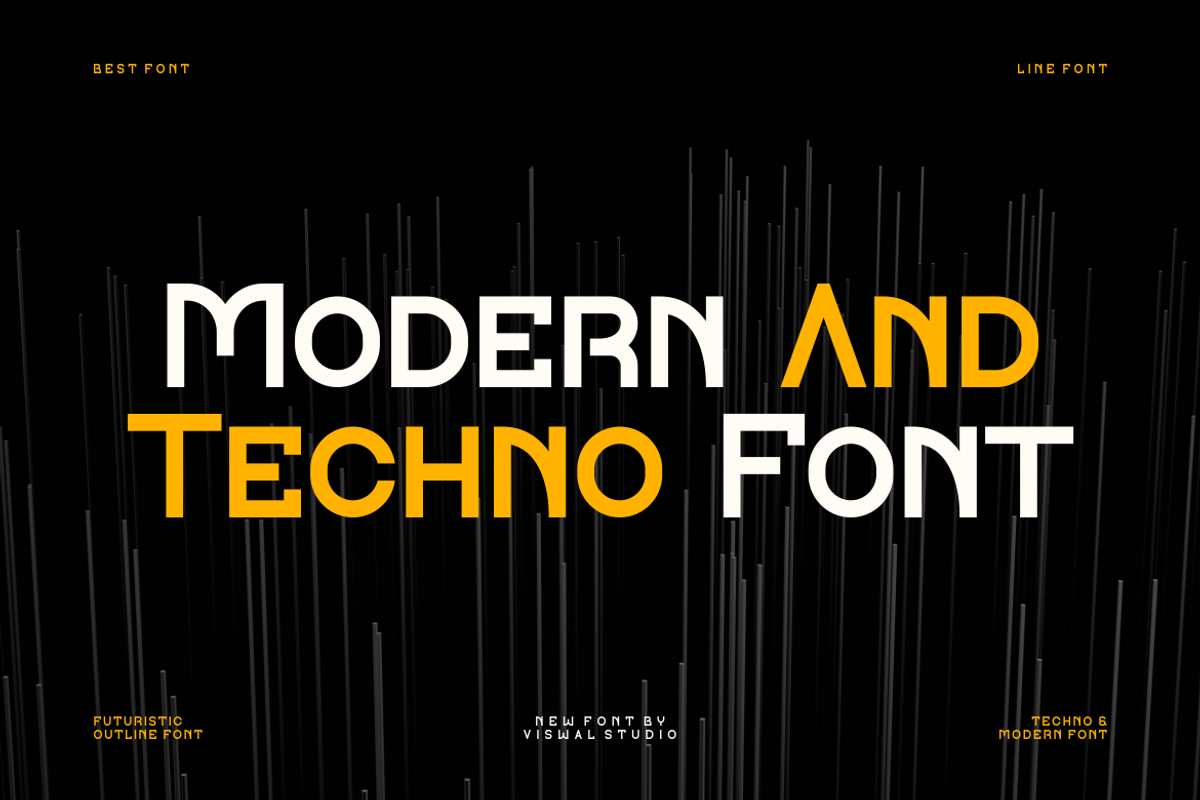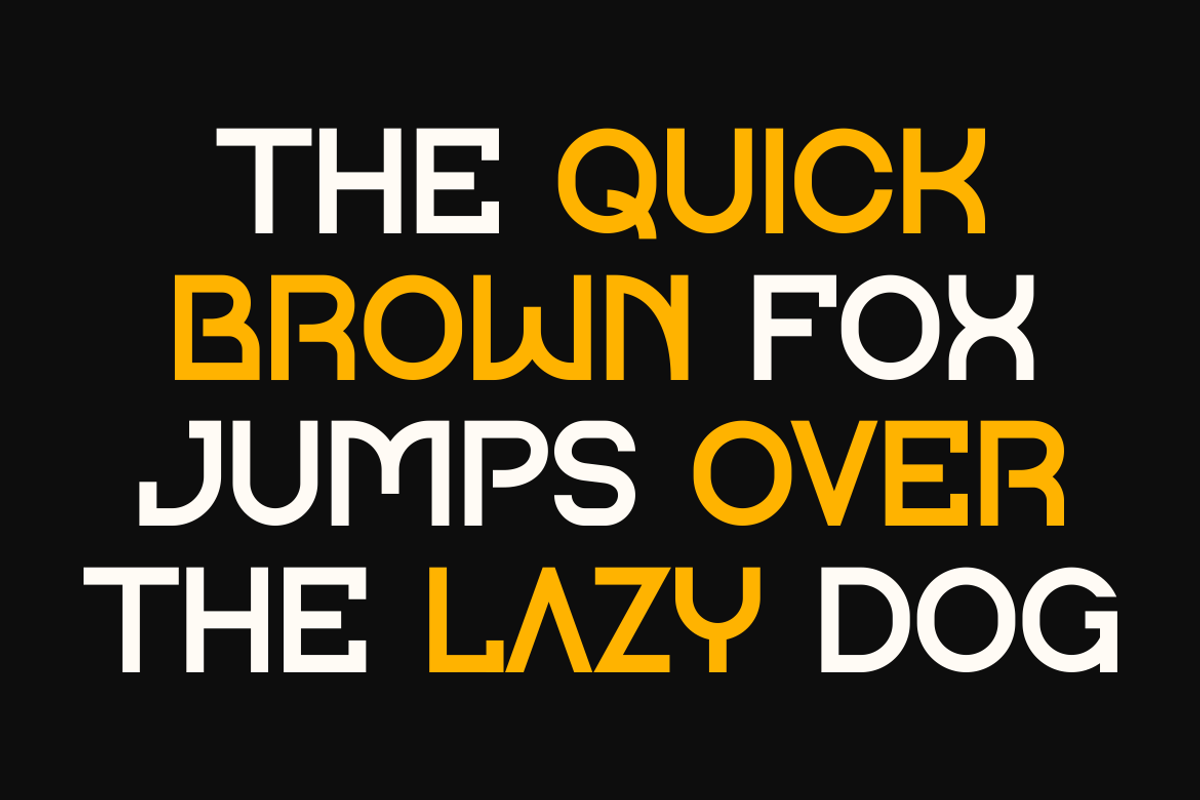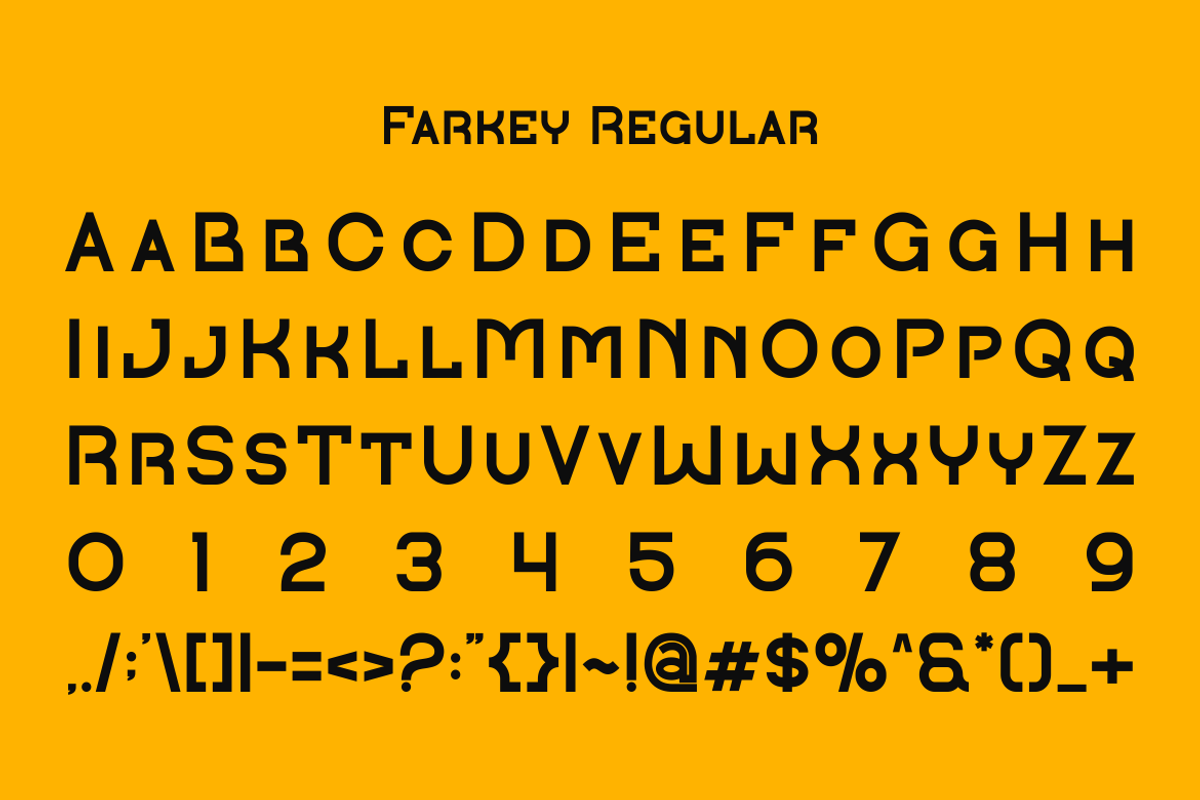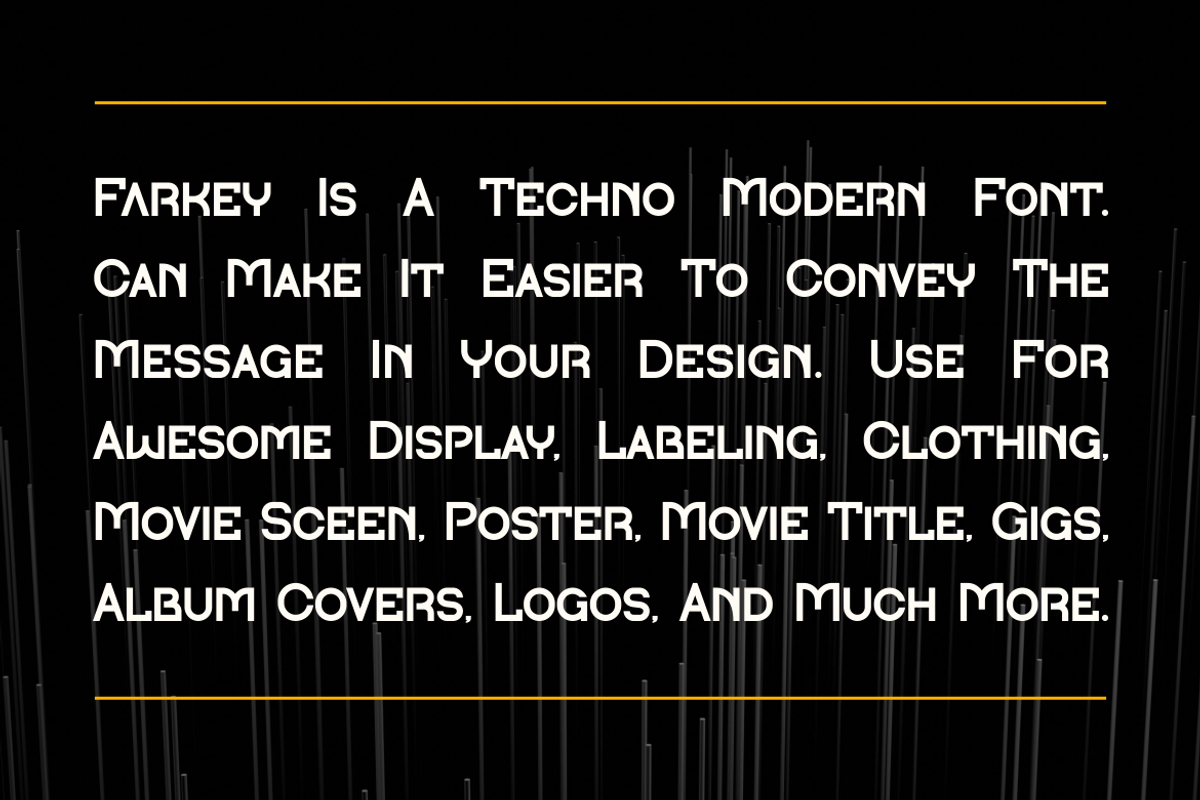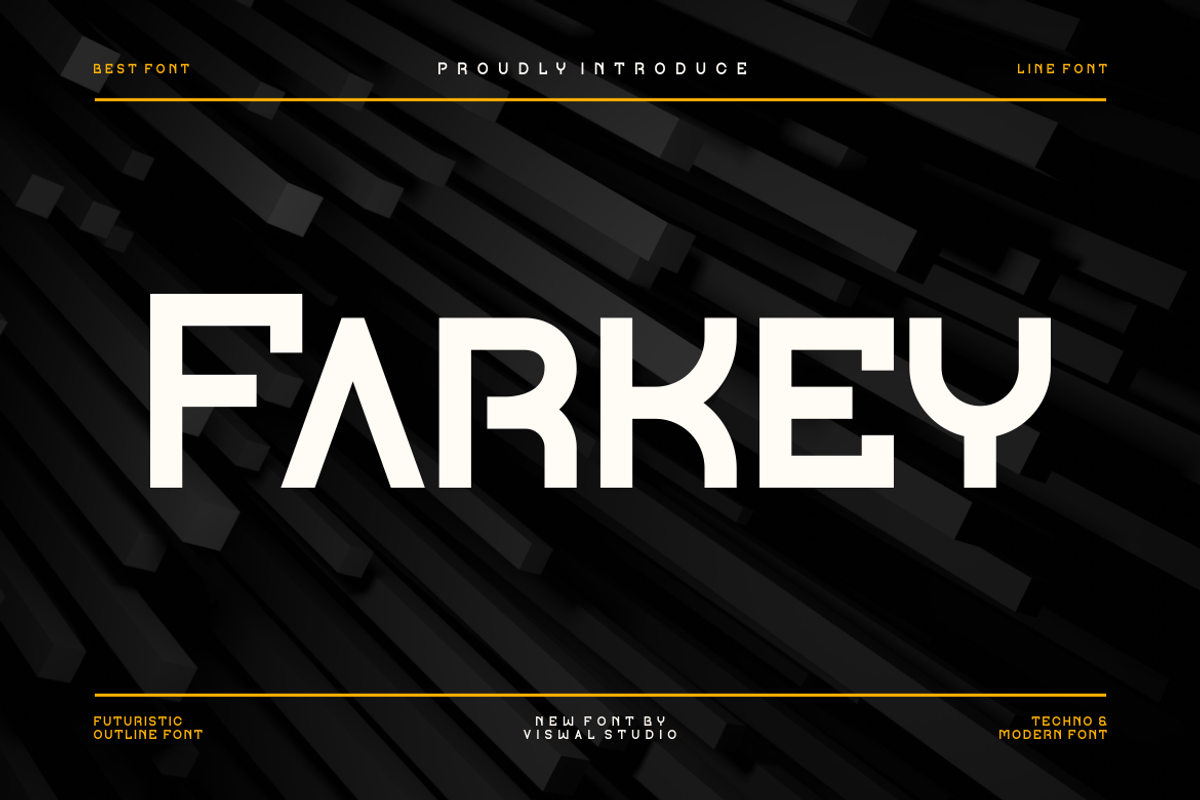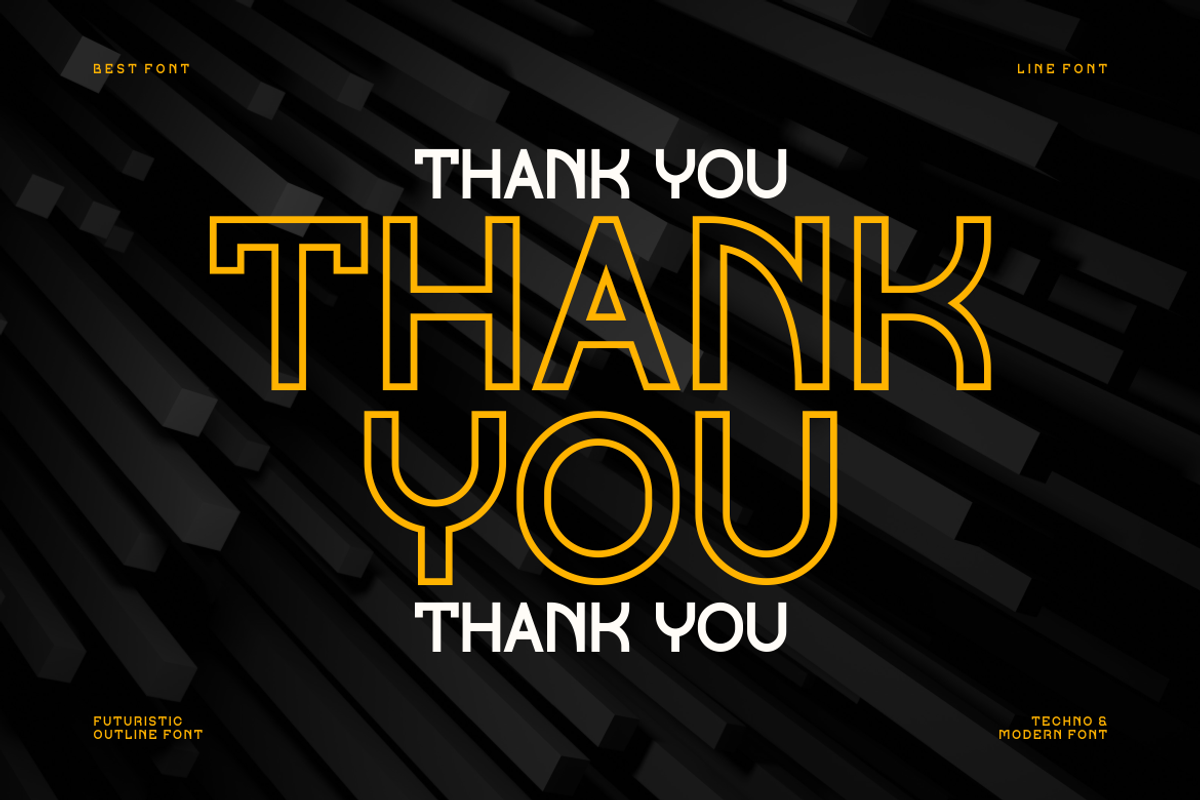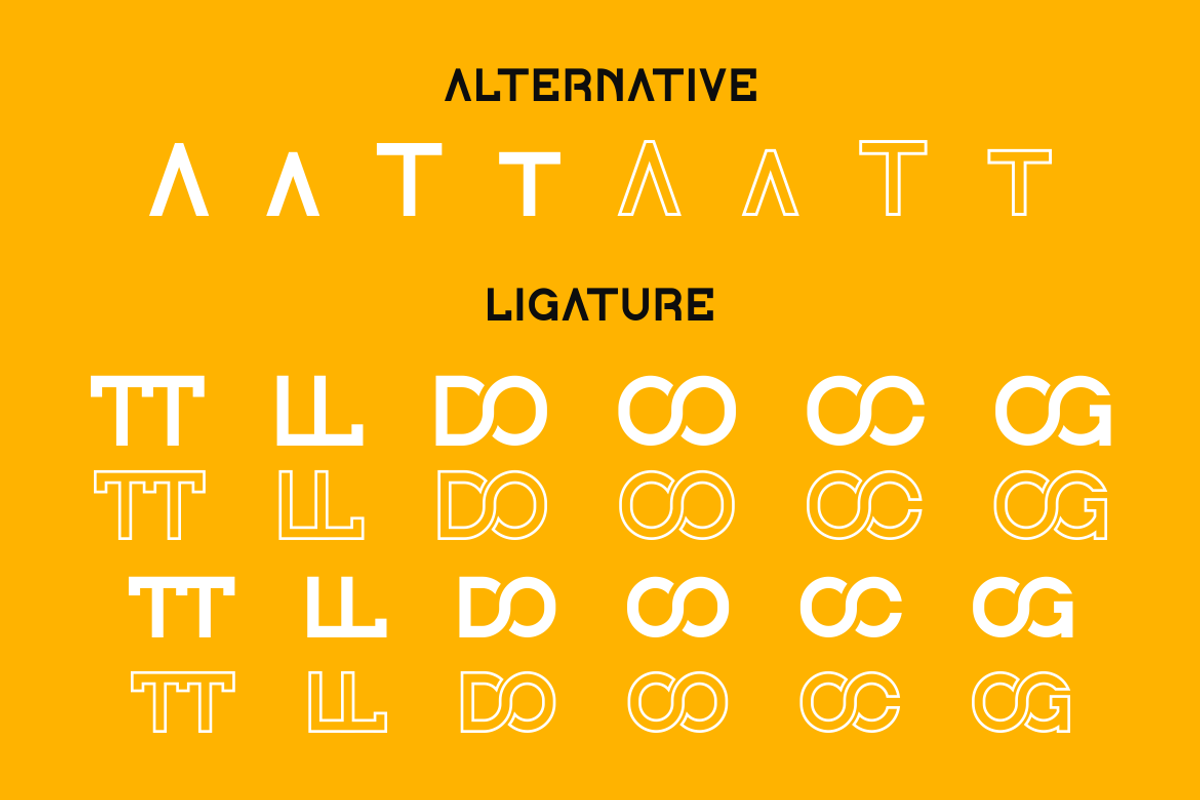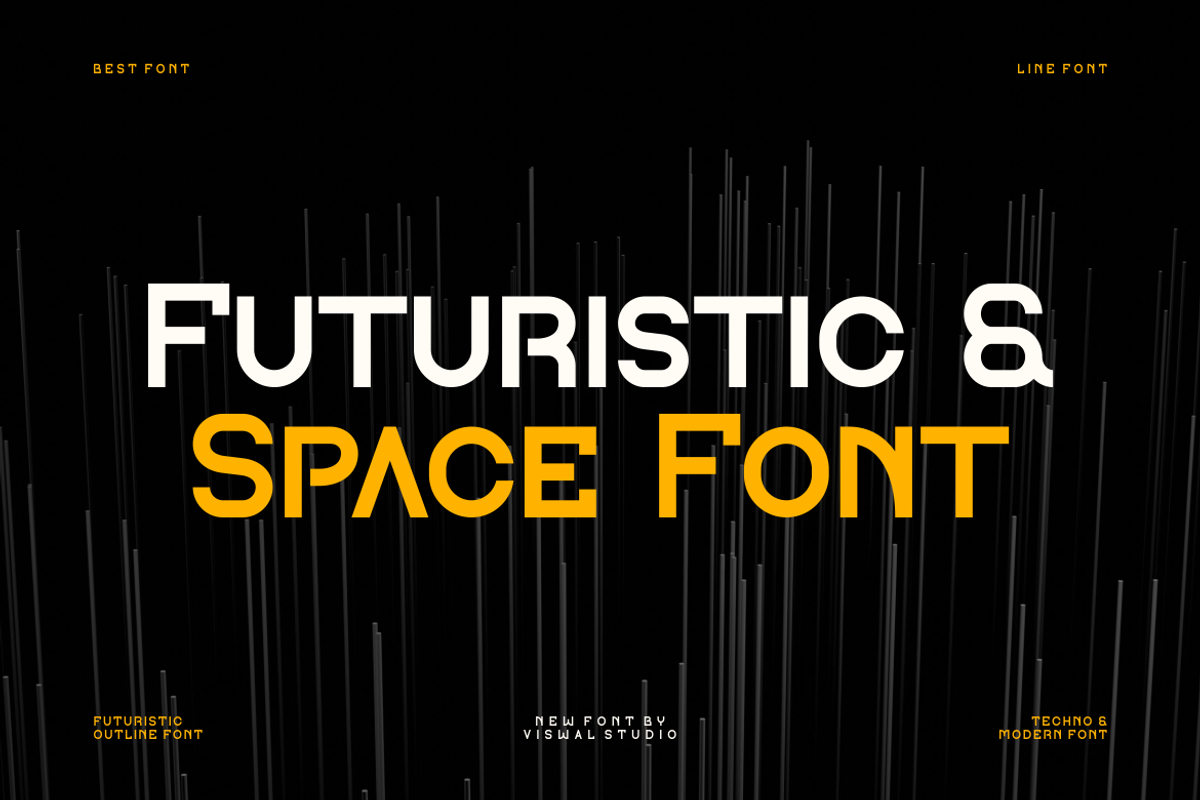
Farkey - Modern Techno Font
Presenting Farkey Is A Modern Techno Font
Can Make It Easier To Convey The Message In Your Design. Font Is Suitable For Logo, Labels, Badge, Branding, Magazine, Poster, Title, Gigs, Covers And Etc. Our Fonts Have Uppercase & Lowercase, Numeral & Punctuation, And Opentype Features. For Amazing Designs You Can Mix With Other Fonts As A Complement.